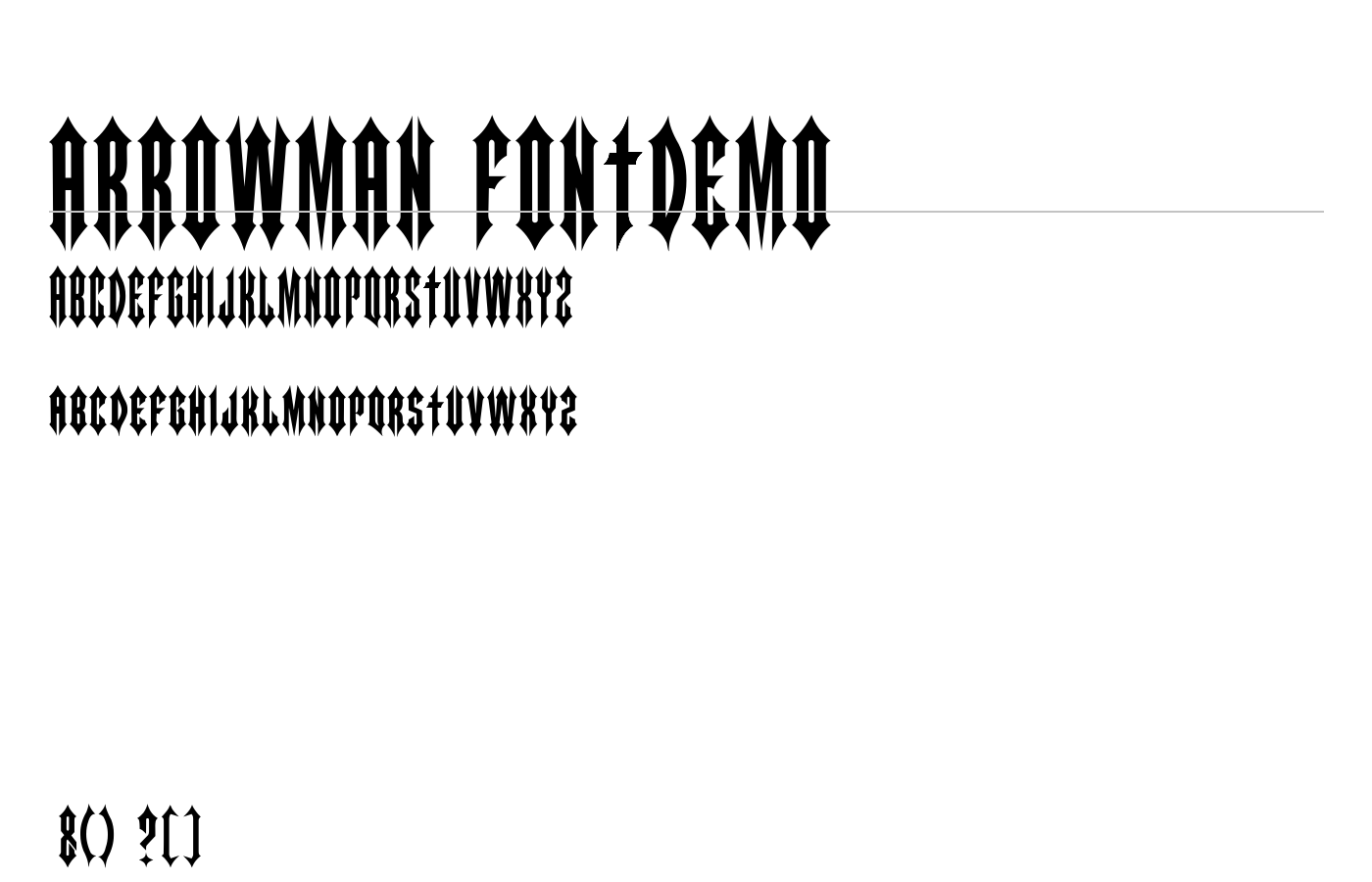
ARROWMAN FONTDEMO is a bold, condensed serif typeface with sharp, pointed edges that evoke a gothic or medieval style. Its tall, narrow structure and high contrast between thick and thin strokes create a dramatic and striking appearance, making it ideal for impactful headlines, logos, or branding that seeks a strong, edgy, and vintage-inspired aesthetic. This font works best in display uses where its unique, ornate letterforms can be showcased clearly.
ARROWMAN FONTDEMO Font